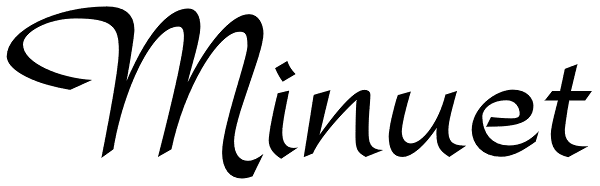
Minuet
Minuet, an informal script with crossover deco elements giving it an unmistakable 1940s flavor, is a revival and expansion of the Rondo family, the last typeface drawn by Stefan Schlesinger before his death. This family was initially supposed to be...